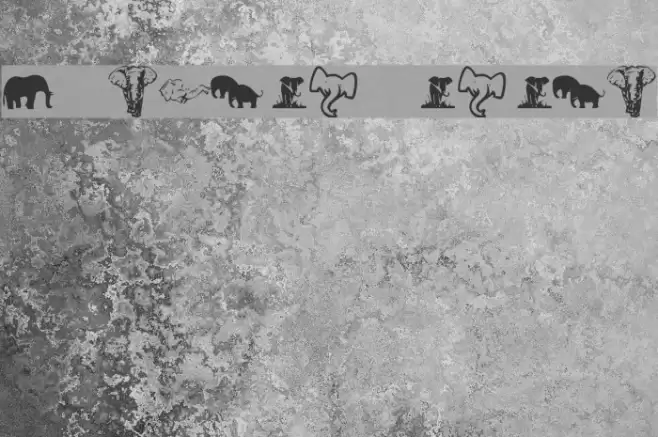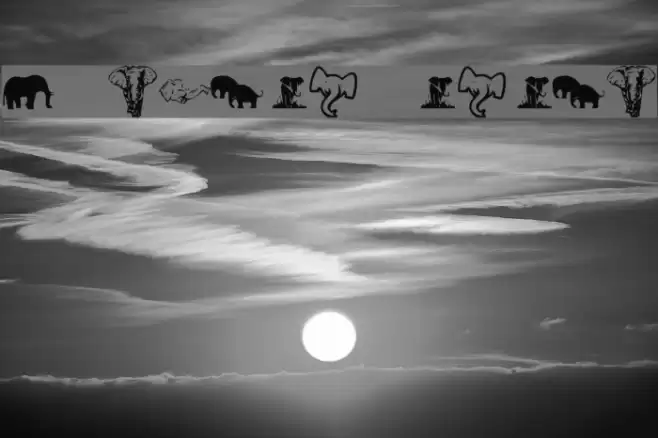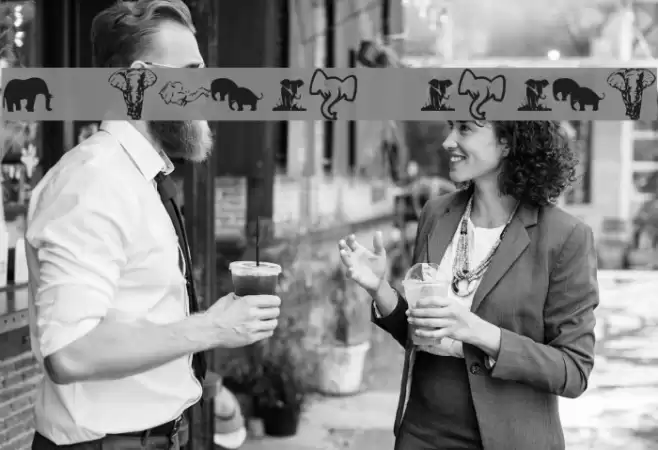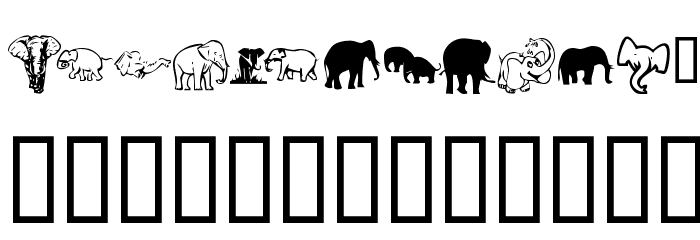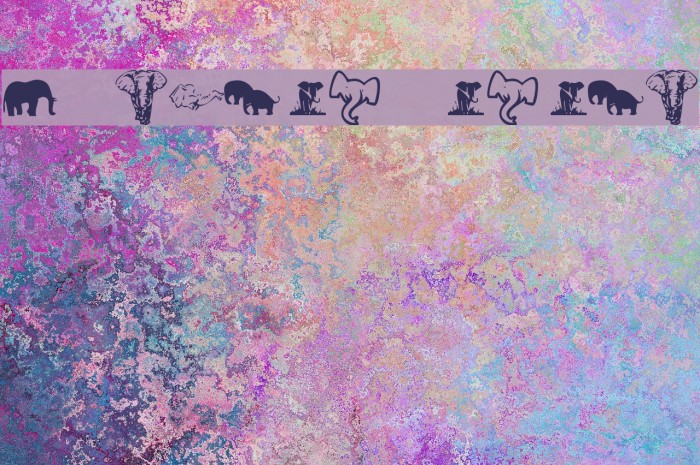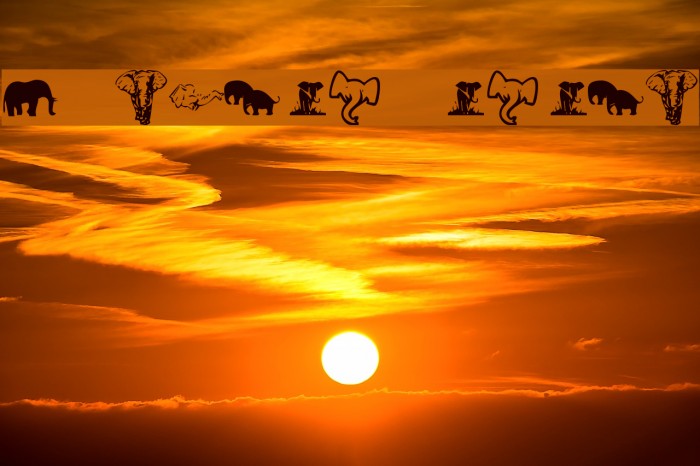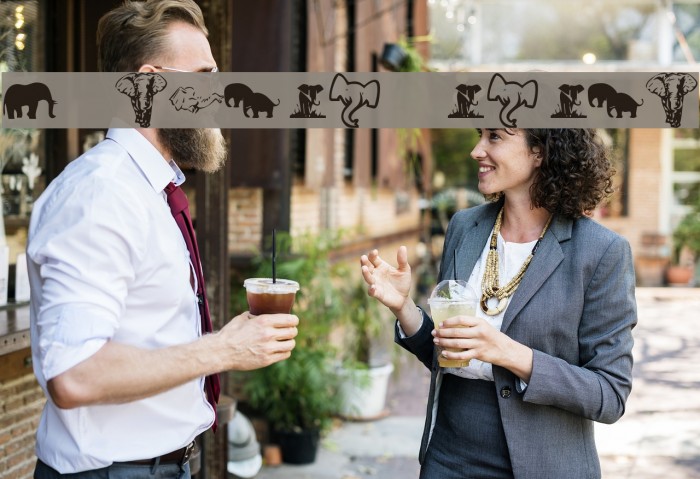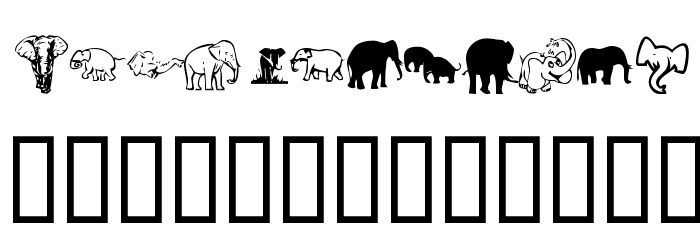
KR Rachel's Elephants Font
KR Rachel's Elephants Description
A decorative dingbat font featuring a variety of elephant illustrations in different poses and styles, including both realistic and cartoon-like depictions, presented in black and white line art.
Elephant-themed decorative dingbat font with assorted illustrations from Uncategorized fonts.
- Proposed Projects: Children’s books, educational materials, animal-themed party invitations, scrapbooking, playful branding, and decorative borders.
- Overall Style: Decorative, Playful
- Use Case: Decorative elements, Icons, Themed graphics